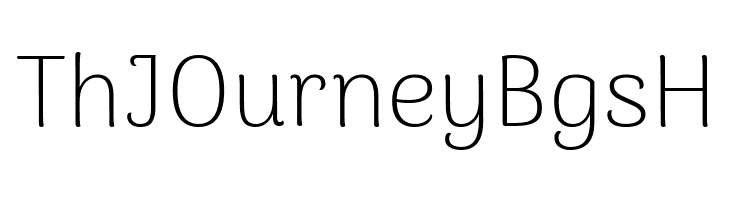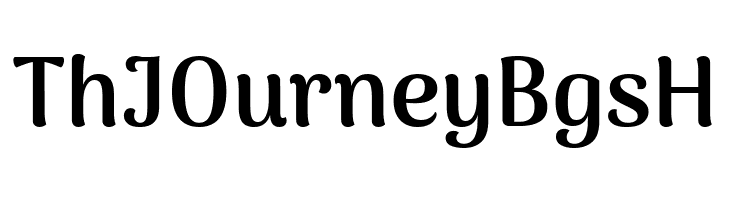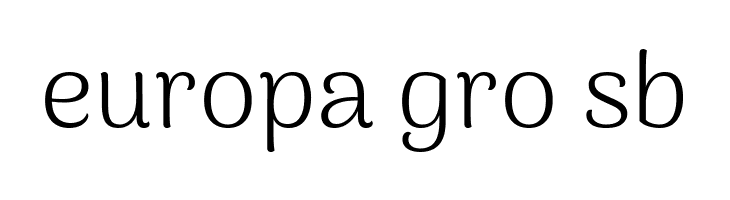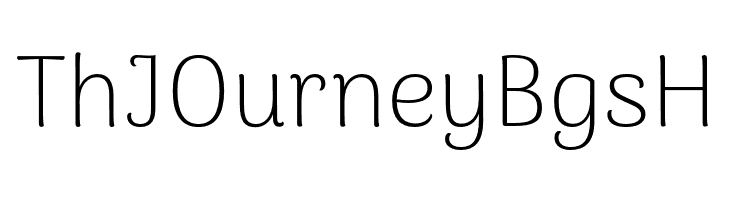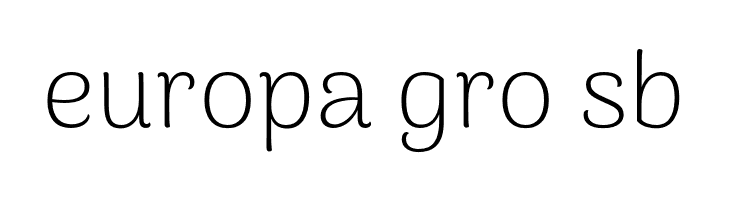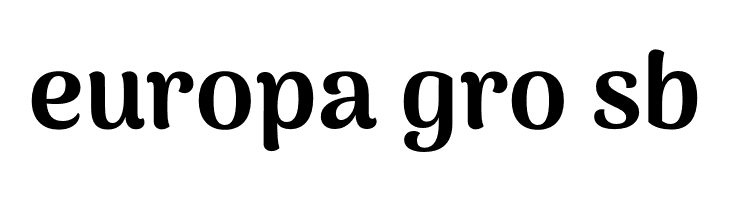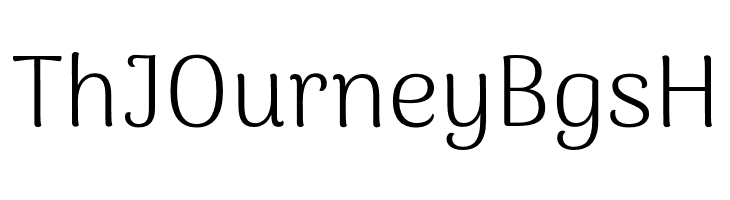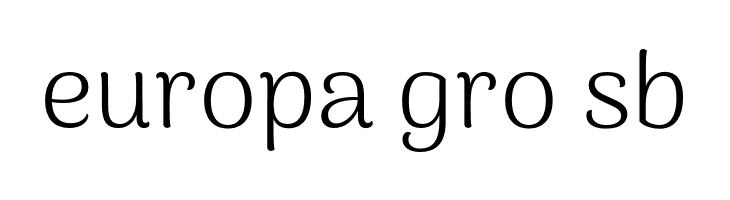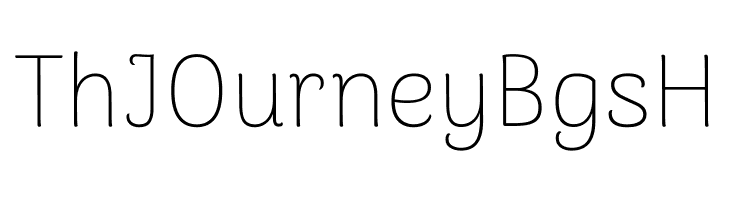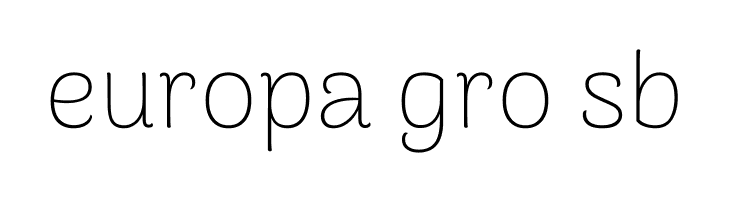
• Arima Madurai Thin
A modern, thin sans-serif font with a clean and minimalist design.
• ArimaKoshi-Black
A bold, playful typeface with rounded edges and a friendly appearance.
• ArimaMadurai-Black
A bold, rounded font with a playful yet structured style.
• ArimaMadurai-Black
A bold, rounded font with a playful and structured design.
• ArimaMadurai-Bold
A playful, rounded font with smooth curves and a friendly appearance.
• ArimaMadurai-ExtraBold
A bold, rounded font with a playful yet sophisticated style.
• ArimaMadurai-ExtraLight
A modern, extra light sans-serif font with a sleek and airy appearance.
• ArimaMadurai-ExtraLight
A clean, modern font with slender, consistent strokes and an elegant appearance.
• ArimaMadurai-Light
A clean, modern font with elegant proportions and consistent stroke width.
• ArimaMadurai-Light
A clean, modern font with rounded edges and excellent readability.